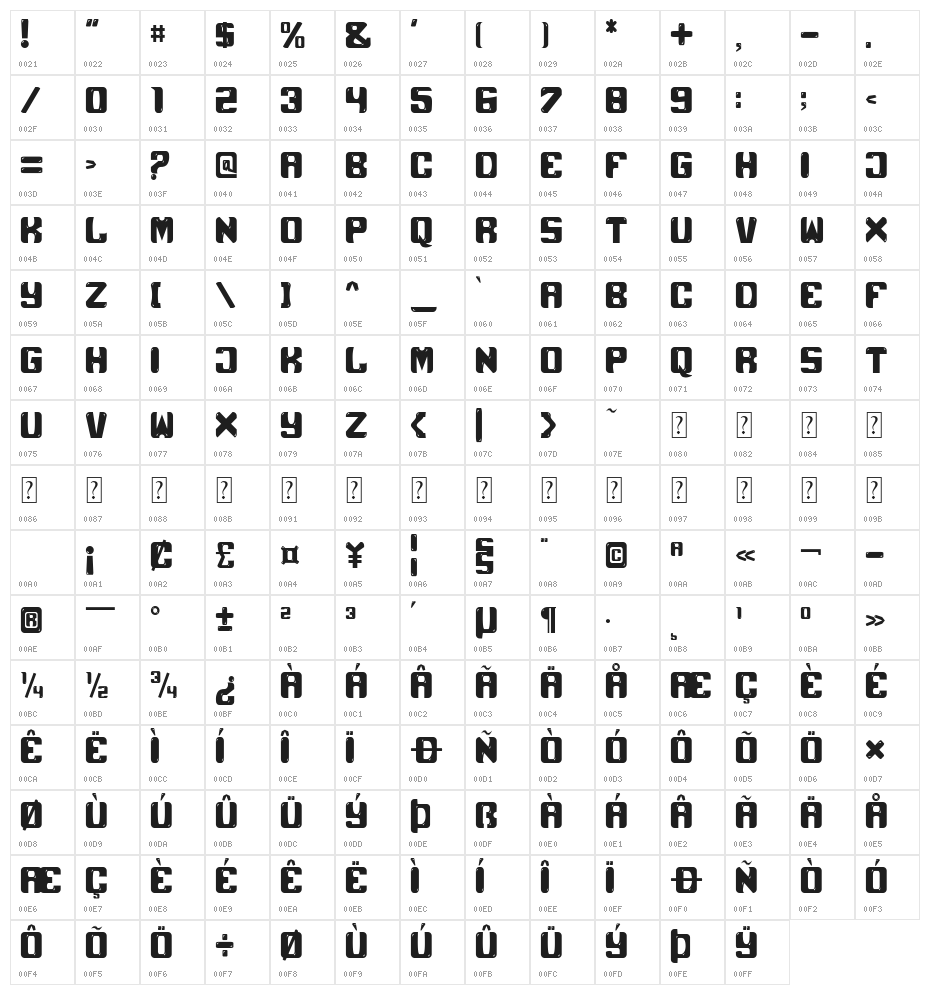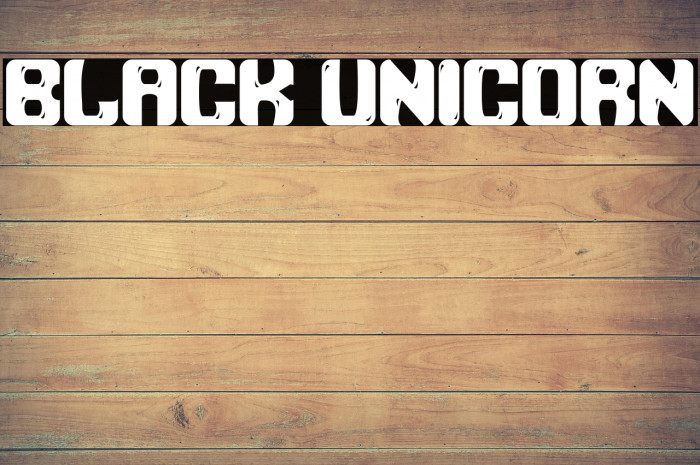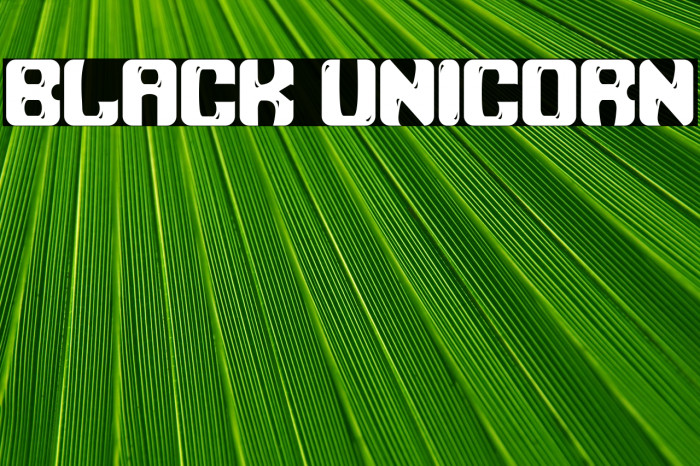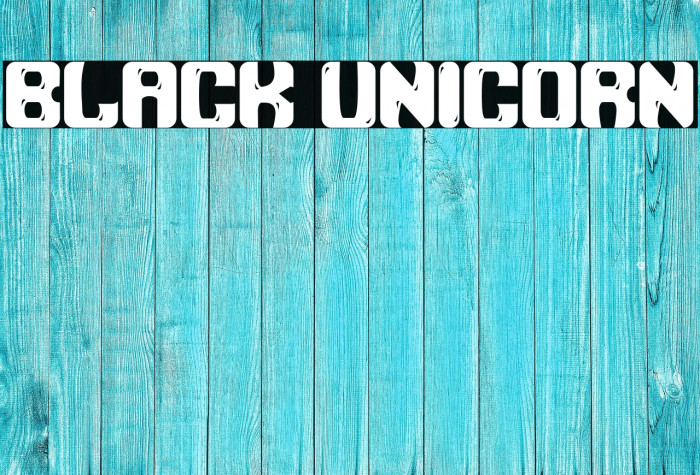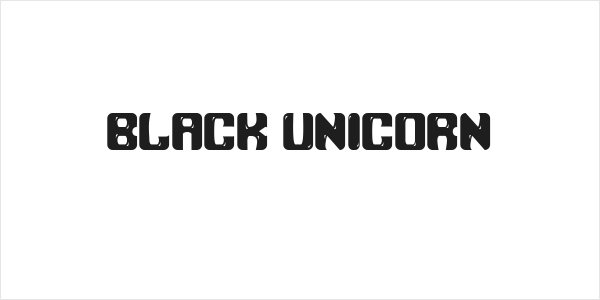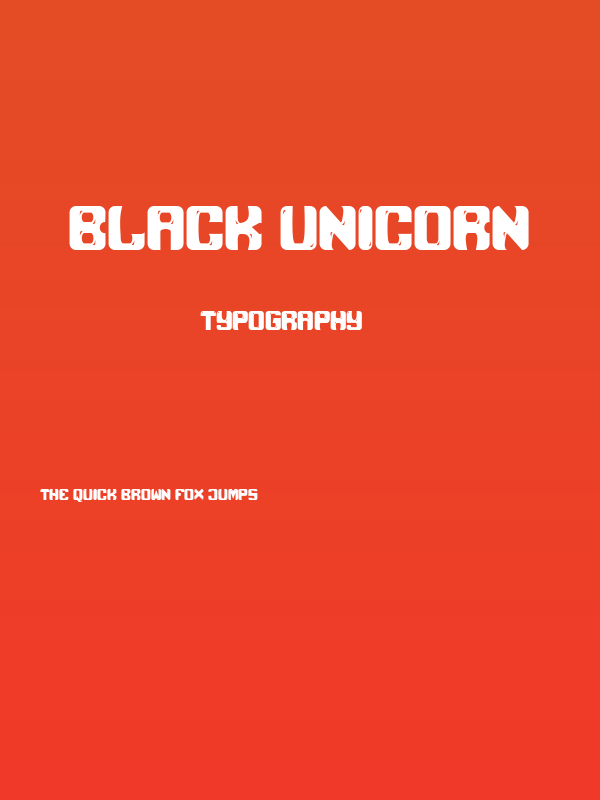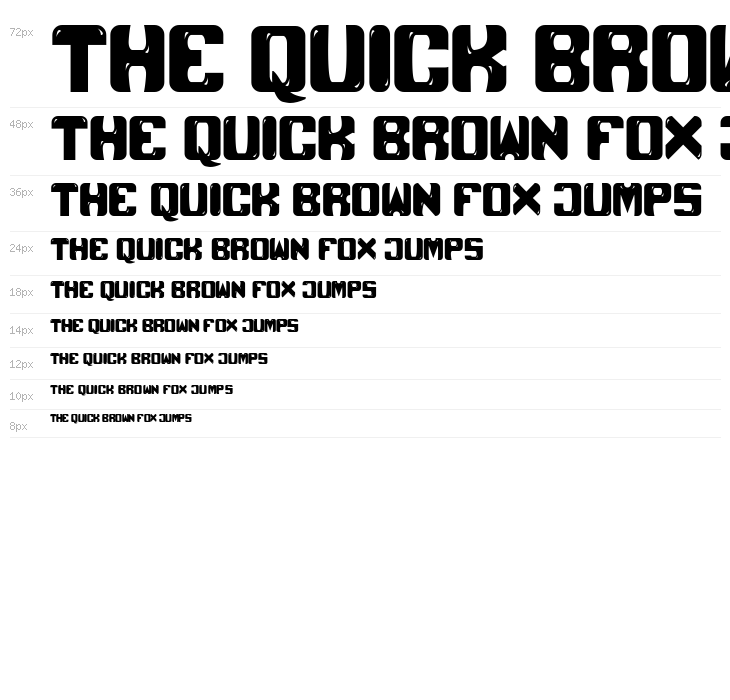
Black Unicorn Font
Black Unicorn Description
This font features a bold, geometric design with a distinctly modern and futuristic appeal. The characters are constructed with thick, block-like forms that incorporate unique cutouts and rounded edges, giving it a playful yet robust appearance. The uppercase and lowercase letters maintain a consistent style, with a uniform height and width that enhances readability. The numbers and special characters follow the same design principles, ensuring a cohesive look across all elements. The font's strong presence makes it ideal for attention-grabbing headlines or branding projects where a contemporary and edgy aesthetic is desired.
| Proposed Projects | Ideal for branding, headlines, posters, and digital media projects requiring a modern and bold aesthetic. |